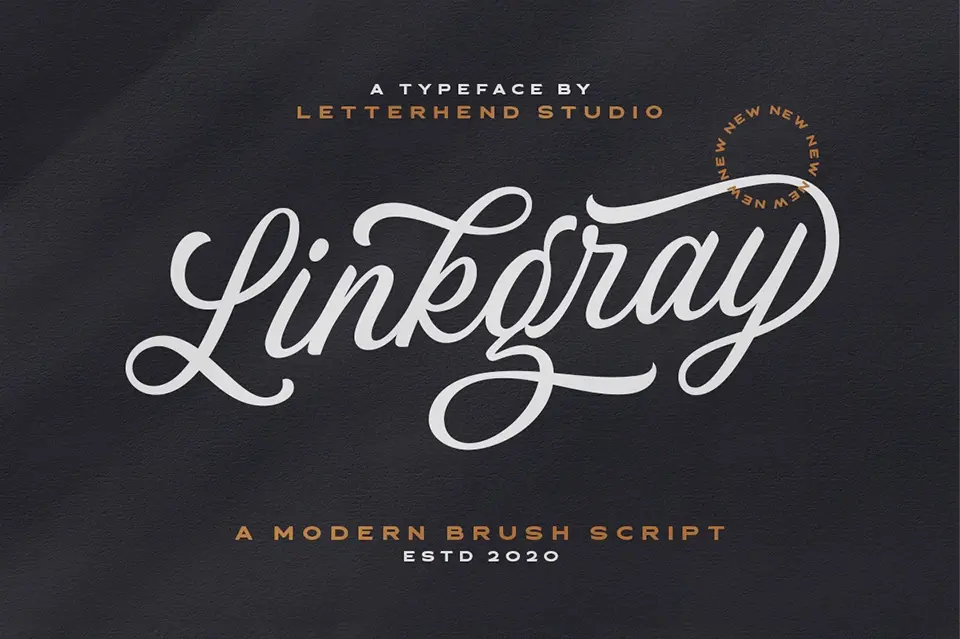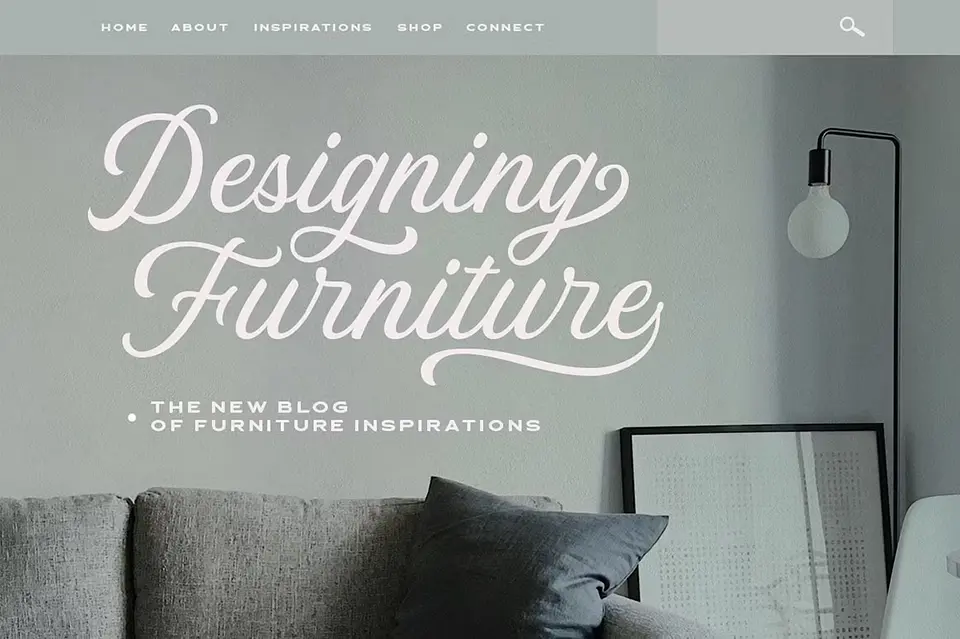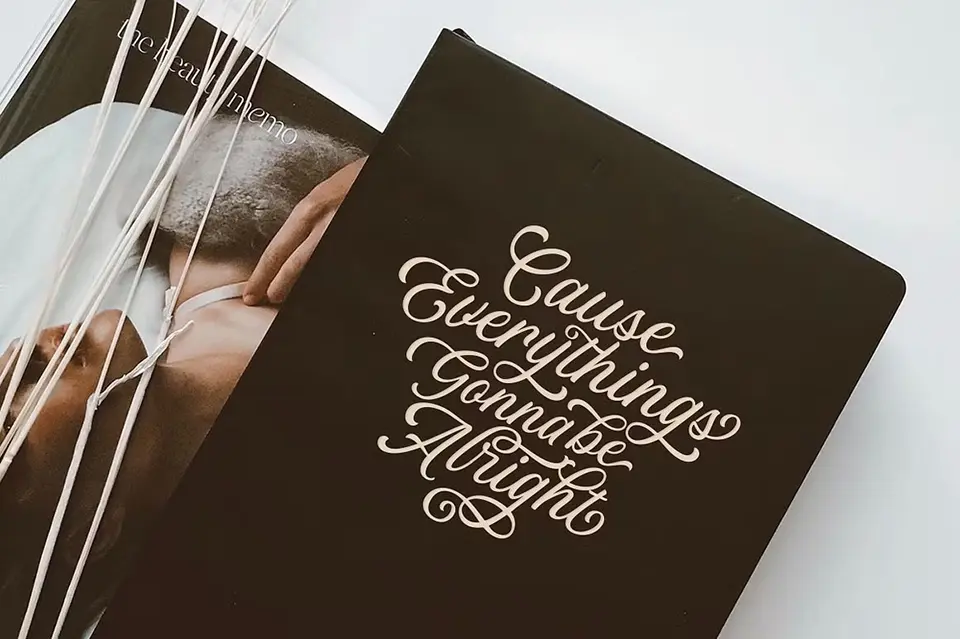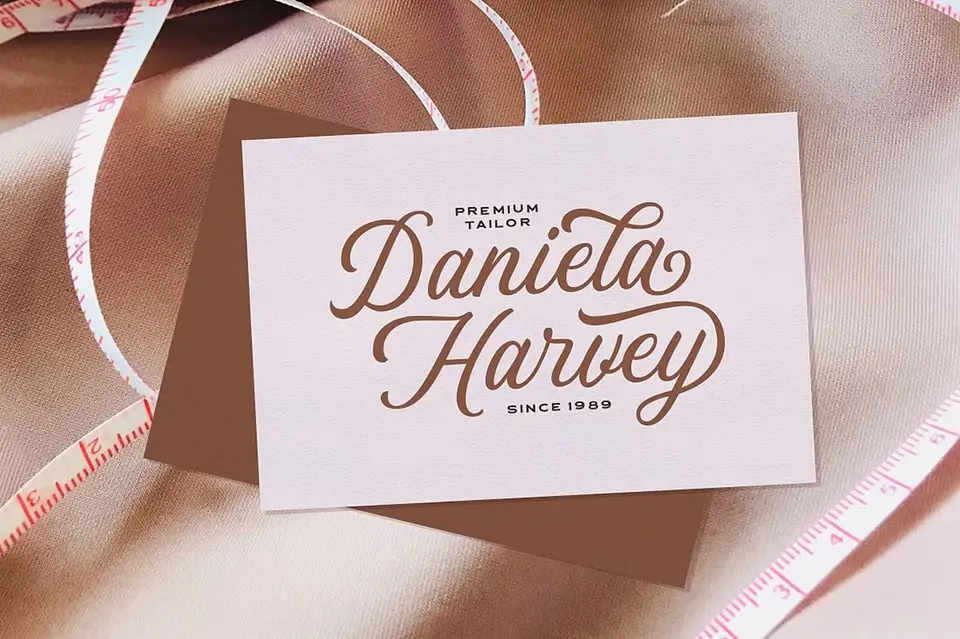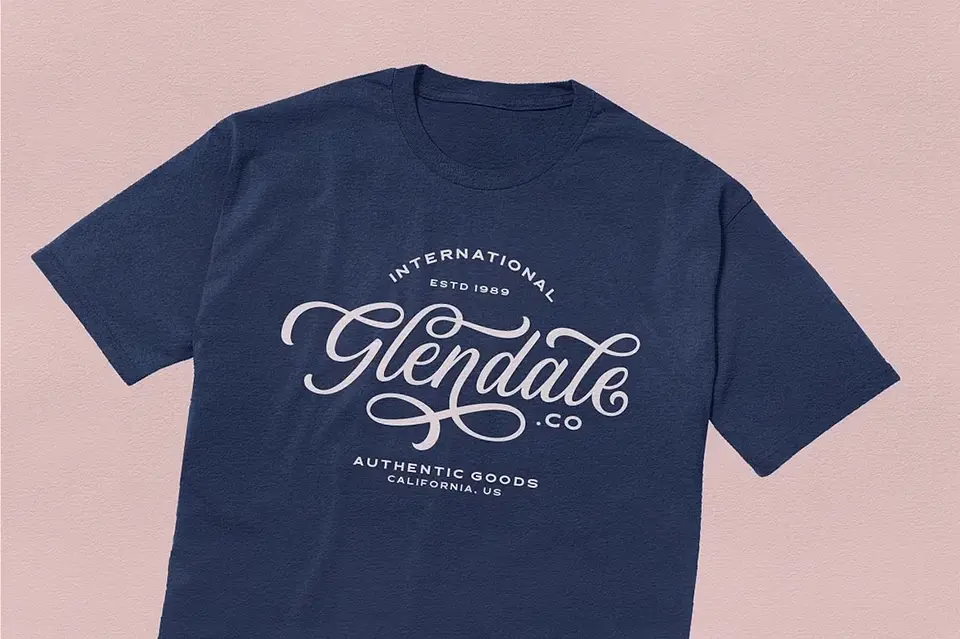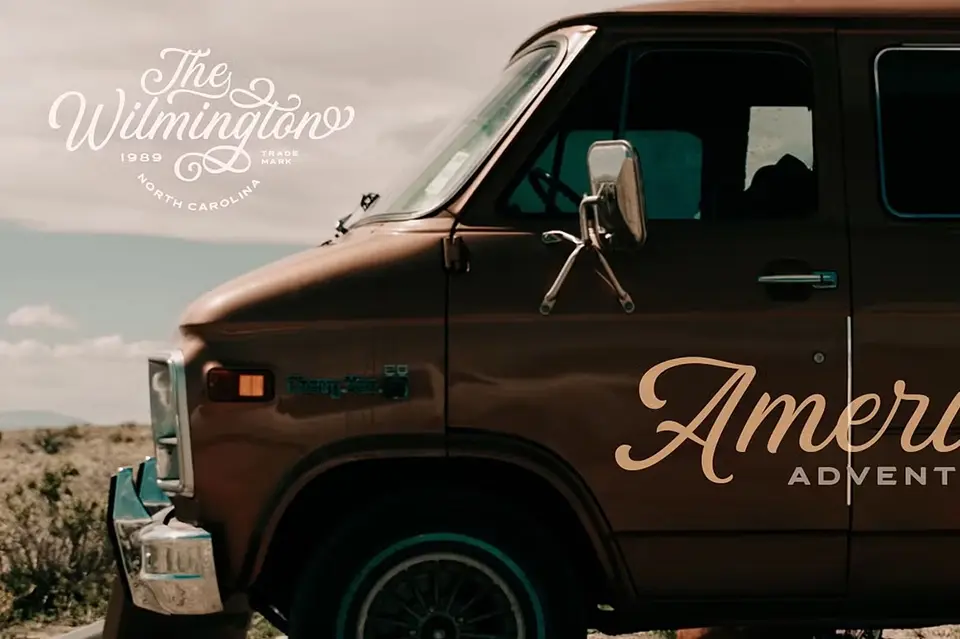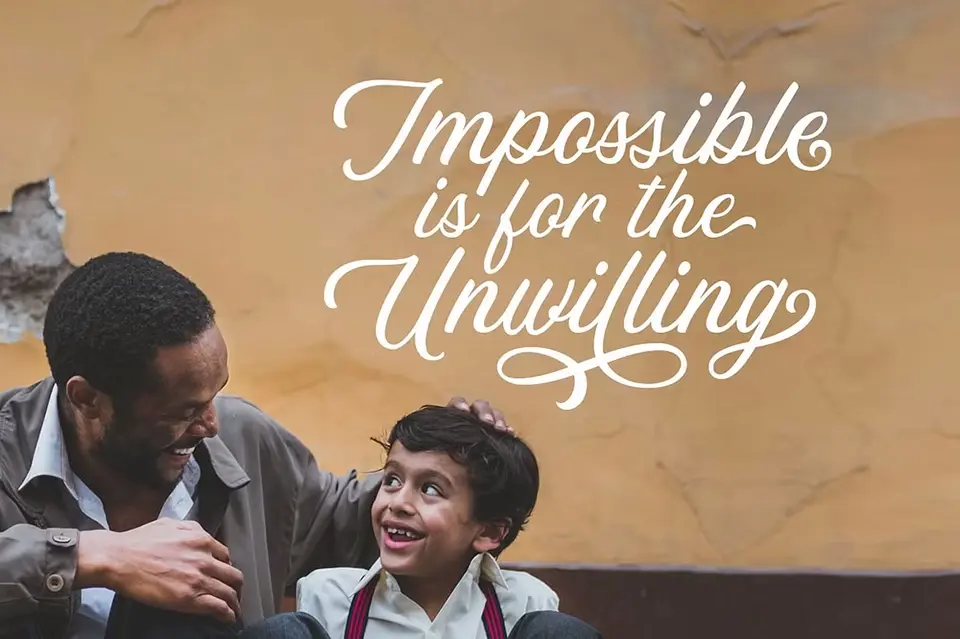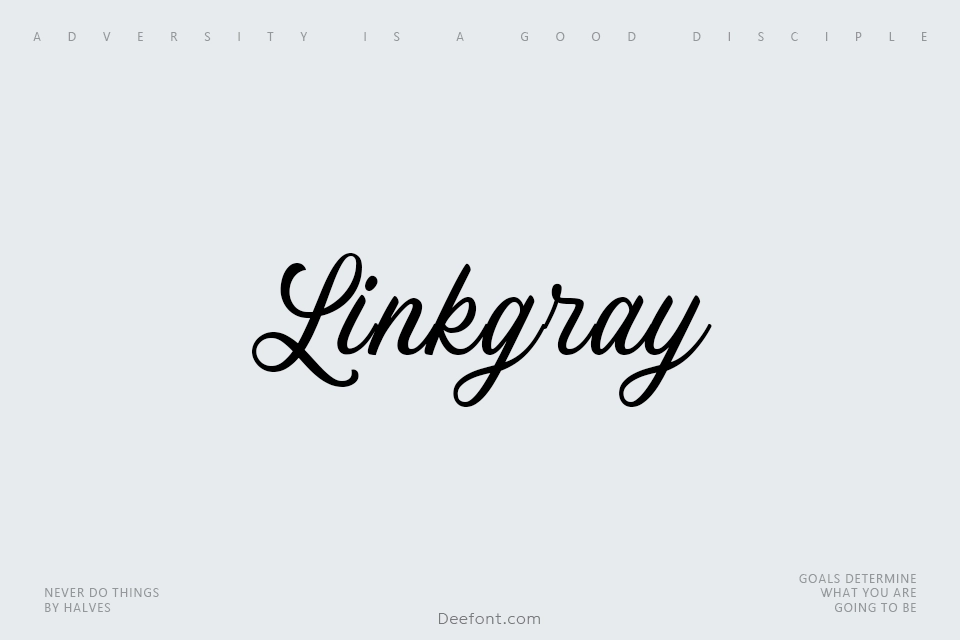
Linkgray Font
Linkgray is an elegant calligraphy script font designed by Letterhend Studio that combines modern sophistication with charming handwritten aesthetics. This typeface features gorgeous swashes and ligatures, making it incredibly versatile for creative applications. Perfect for logo designs, invitations, labels, magazine layouts, and branding projects, Linkgray offers a friendly yet refined appearance ideal for designers seeking to add a touch of elegance and personality to their work.